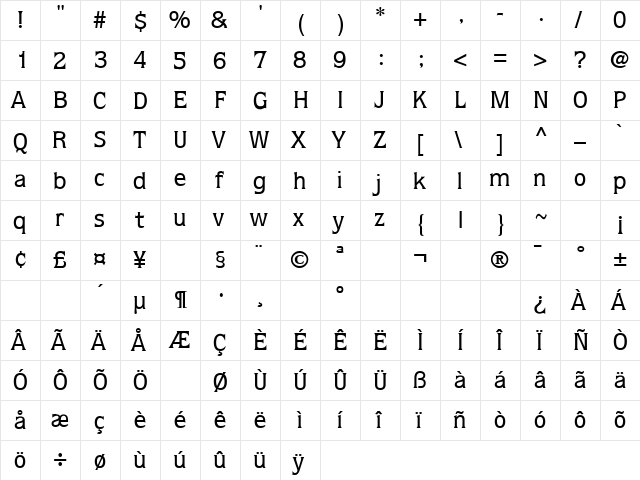
Doors Normal Font Preview
Doors Normal
Doors Normal Font Details
Design Context for Doors Typeface
Doors is a composed and adaptable typeface that performs quietly and consistently across a wide range of design contexts.